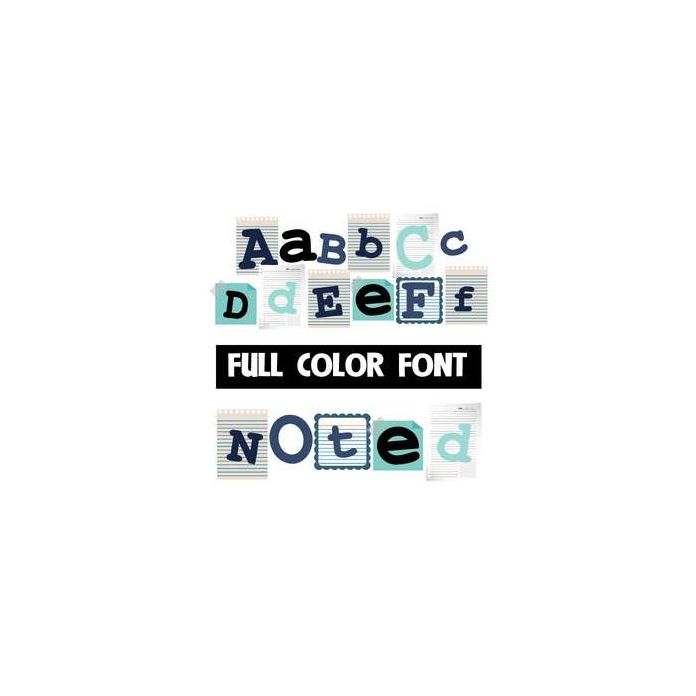
This full-color font features toggled lettering on little notes. This font works best for titles, displays, posters and more. Please note color fonts will show as black in non compatible programs. This font type is compatible with Silhouette Studio.